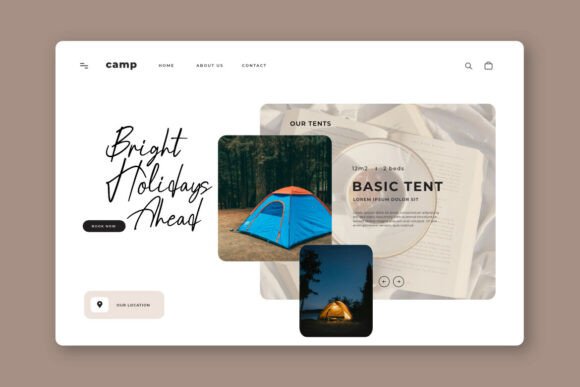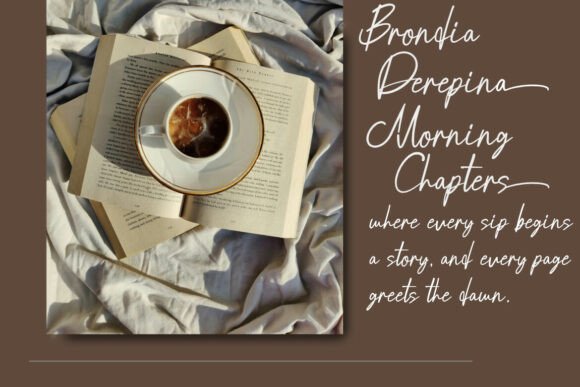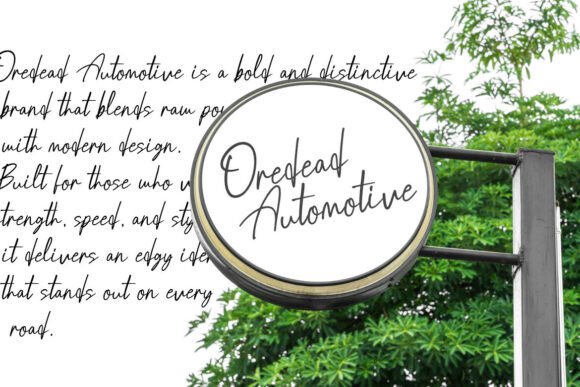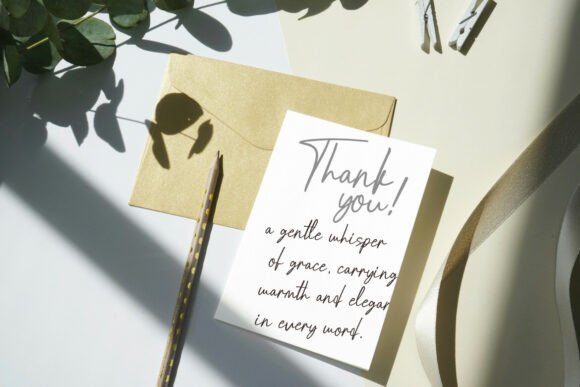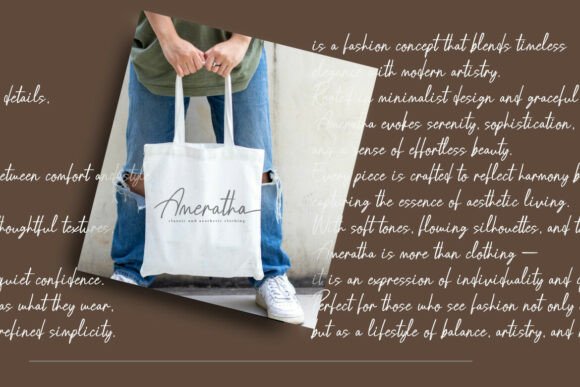
Unleash the Beauty of Handwritten Style with Brondia Derepina Font
Have you ever sat down with a cup of coffee, a pen, and a piece of paper, and let your creativity flow onto the page? That’s where the magic happens – in those unscripted moments when inspiration strikes. For designers, it’s about capturing the essence of a handwritten script that adds a personal touch to any project. This is where the Brondia Derepina Handwritten Script Font comes in – a stylish, elegant, and modern addition to your design toolkit.
With its natural flow and feminine curves, Brondia Derepina Font is perfect for branding, invitations, packaging, and social media. Its timeless appeal makes it a valuable asset for designers looking to bring personality and elegance to their projects. Whether you’re a seasoned pro or a newcomer to the world of design, Brondia Derepina Font is sure to inspire your next creative endeavor.
- Unique Characteristics: Brondia Derepina features a unique blend of modern and vintage elements, with intricate details and ornaments, making it suitable for a wide range of applications, from body text to display typography
Brondia Derepina Font Review
First impressions are everything, and the Brondia Derepina Font certainly makes a statement. The ✨ unique blend of rustic and modern elements gives it a distinctive charm that’s sure to grab attention. The font’s versatility shines through in its ability to work well in both digital and print applications.
The Brondia Derepina Font has a lot to offer, including:
- ✨ Strong legibility, making it perfect for body text and paragraphs
- ✨ Unique character set, perfect for adding a touch of personality to your designs
- ✨ High-quality vector format, ensuring crisp and clear results in any resolution
However, like any font, the Brondia Derepina has its limitations:
- ⚠️ Limited support for special characters and accents, which may cause issues in certain languages
- ⚠️ May not be suitable for use in very small sizes, as the letterforms can become quite condensed
Overall, the Brondia Derepina Font is a solid choice for designers looking to add some visual interest to their projects. While it may not be perfect, its unique charm and versatility make it a great addition to any font collection.
Tips for Getting the Most Out of Brondia Derepina Font
Use Brondia Derepina Font for headings and titles to add a touch of elegance and sophistication.
Pair it with other fonts for a unique and eye-catching combination.
Brondia Derepina Font is perfect for:
Editorial and publishing designs
Alternative Fonts to Brondia Derepina Font
The Great Vibes Font is a modern script font that is perfect for creating a friendly and approachable atmosphere. It is ideal for use in branding, advertising, and packaging design. Great Vibes Font has a similar elegant and flowing feel to Brondia Derepina Font, but with a more casual and relaxed tone.
Carolyna Pro Font is a luxurious script font that is perfect for creating a high-end and sophisticated atmosphere. It is ideal for use in luxury branding, fashion, and fine art design. Carolyna Pro Font has a similar elegant and refined feel to Brondia Derepina Font, but with a more dramatic and luxurious tone.
The Alex Brush Font is a beautiful script font that is perfect for creating a romantic and elegant atmosphere. It is ideal for use in wedding invitations, fine art, and luxury branding design. Alex Brush Font has a similar flowing and elegant feel to Brondia Derepina Font, but with a more delicate and refined tone.
The Dancing Script Font is a fun and playful script font that is perfect for creating a lively and energetic atmosphere. It is ideal for use in advertising, social media, and entertainment design. Dancing Script Font has a similar dynamic and expressive feel to Brondia Derepina Font, but with a more casual and playful tone.